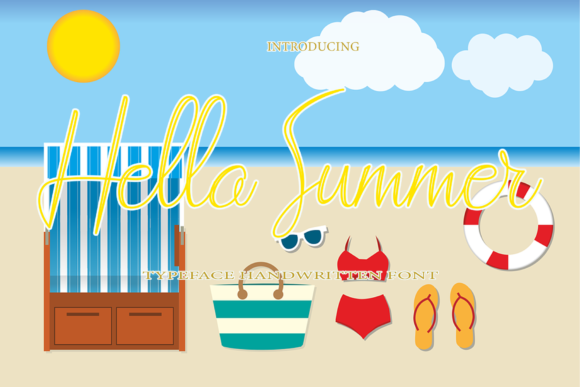
About Hello Summer Font
Introducing Hello Summer, a beautiful and light handwritten font that brings a unique and stunning impact to your design projects. With its elegant and luxurious feel, Hello Summer is the perfect choice to add a touch of sophistication and style.
Hello Summer’s light and delicate letterforms exude a sense of grace and beauty. Each character is meticulously crafted with attention to detail, creating a visually appealing and harmonious composition. The unique feel of Hello Summer adds a touch of distinction and elegance, making it a standout font for any design project.
The versatility of Hello Summer allows it to shine in various design contexts. Whether you’re working on branding, invitations, social media graphics, packaging, or any other creative project, Hello Summer adds a luxurious and refined touch. Its handwritten style creates a warm and personal connection with your audience, evoking a sense of elegance and beauty.
Hello Summer’s beautiful and light style makes it a perfect fit for a wide range of designs. The unique feel of the characters brings a touch of sophistication and impact to your projects. Whether used for creating stunning logos, adding a touch of elegance to typography, or enhancing the beauty of quotes and messages, Hello Summer is a font that exudes luxury.
No matter the design project or theme, Hello Summer has the potential to elevate any creation. Its beautiful and light nature makes it a versatile choice for various design projects. Embrace the elegance of Hello Summer and confidently incorporate it into your designs, creating visually stunning compositions that leave a lasting impression.
In summary, Hello Summer is a beautiful and light handwritten font that adds a unique and stunning impact to your design projects. Its elegant and luxurious feel sets it apart. Embrace the versatility of Hello Summer and let it bring a touch of sophistication and style to your creations, creating visually appealing compositions that captivate and inspire.